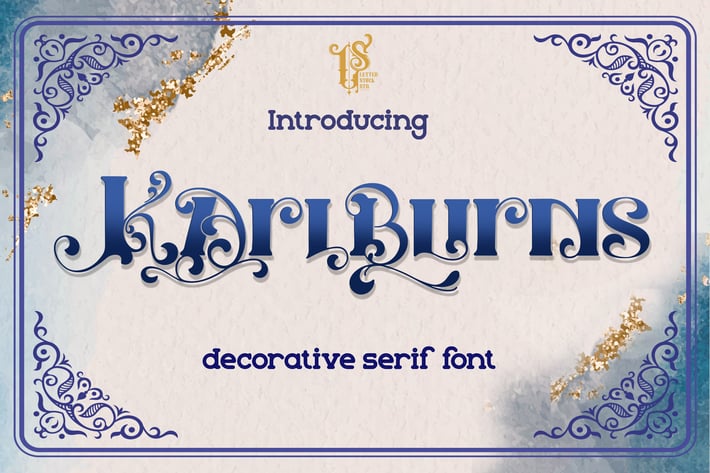
Karlburn - Serif Decorative Font
Karlburn
This pair was inspired by lettering at invitation design that i got few weeks ago, it was crafted by hand specially to add natural handmade feeling in its brand identity than i make it clean with pentool.
Karlburn font has 183 character set included.
This font is very good for design logo, labels, packaging product, invitations, advertising and others, this font will make your design authentic and good looking with modern calligraphy style.
If you’re looking for original calligraphy script font for your greeting card and make your design authentic, this item is a great choice to make your design looks great and unique.